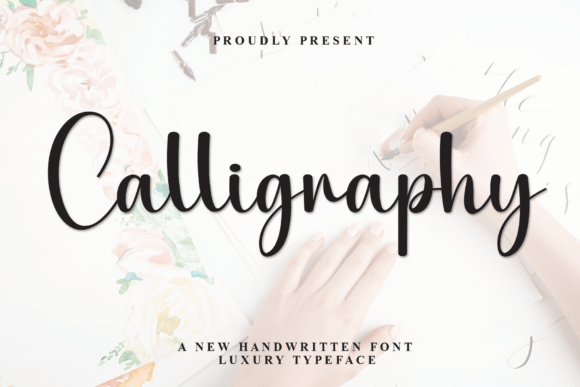
The Art of Elegant Lettering: Unlocking the Power of Calligraphy Font
Have you ever found yourself mesmerized by a beautifully handwritten note or a stunning wedding invitation? The art of elegant lettering has a way of captivating our senses and evoking emotions. For designers, this is more than just a creative moment – it’s an opportunity to bring a touch of personality and sophistication to any project.
That’s where Calligraphy Font comes in – a special collection of creative products designed to give you an extraordinary experience. With its latest style letters, you can add a touch of elegance to wall displays, wedding invitations, social media post logos, and more. Whether you’re a seasoned designer or just starting out, this versatile font is sure to be a valuable addition to your toolkit.
Key Features of Calligraphy Font
- Unique Characteristics: Features intricate brushstrokes, elegant flourishes, and refined letterforms, giving it a distinctive and sophisticated look.
- Style Variations: Offers multiple style variations, including regular, bold, italic, and bold italic, providing flexibility in design applications.
Calligraphy Font Review
I recently had the chance to work with the Calligraphy Font, and I must say it’s a mixed bag. On the one hand, it’s a beautiful, elegant font that can add a touch of sophistication to any design project.
- ✨ Elegant and refined design makes it perfect for invitations, wedding designs, and high-end branding.
- ✨ The font comes in a range of styles, from classic to modern, making it versatile and easy to use.
- ✨ The font is highly customizable, allowing designers to adjust the size, color, and spacing to suit their needs.
However, I did encounter some limitations that may affect its usability in certain projects.
- ⚠️ The font can be quite dense, making it difficult to read at smaller sizes.
- ⚠️ Some characters may not display correctly in certain operating systems or software.
- ⚠️ The font may not be suitable for projects that require a lot of text, as it can be time-consuming to typeset.
Overall, I would say that the Calligraphy Font is a solid choice for designers who want to add a touch of elegance to their projects. However, it may not be the best option for every project, and designers should be aware of its limitations before making a decision.
Common Use Cases for Calligraphy Font
Calligraphy font is commonly used for:
– Baby shower invitations and decorations
– Holiday cards and gift tags
– Restaurant and cafe menus
– Branding and marketing materials
Tips for Getting the Most Out of Calligraphy Font
To get the most out of calligraphy font, follow these tips:
– Use it sparingly to add emphasis and visual interest
– Combine it with other fonts for a unique look
– Experiment with different font sizes and colors
– Use it to create a cohesive brand identity
Alternatives to Calligraphy Font
Carolyna Pro is a modern calligraphy font that offers a more elegant and refined look compared to Calligraphy Font. It is suitable for use in invitations, wedding stationery, and high-end branding materials. It is more versatile and can be used in a variety of contexts, from formal to casual.
Comparison to Calligraphy Font: Carolyna Pro has a more polished and sophisticated look, making it a better choice for high-end branding and formal events. It also offers more flexibility and can be used in a wider range of contexts.
Calligraphy fonts can be more challenging to work with due to their complex letterforms and varying line widths. To ensure consistency, use a high-resolution font that is designed for digital use. Also, consider using a font that is optimized for web use, as these fonts are often designed to work well across different devices and browsers. Additionally, you can use font embedding techniques, such as @font-face, to load the font directly from your server and ensure it displays correctly on all devices.